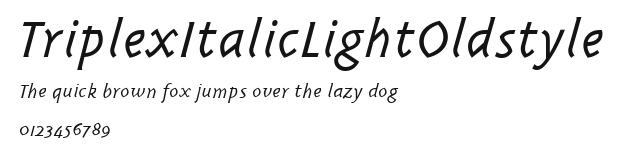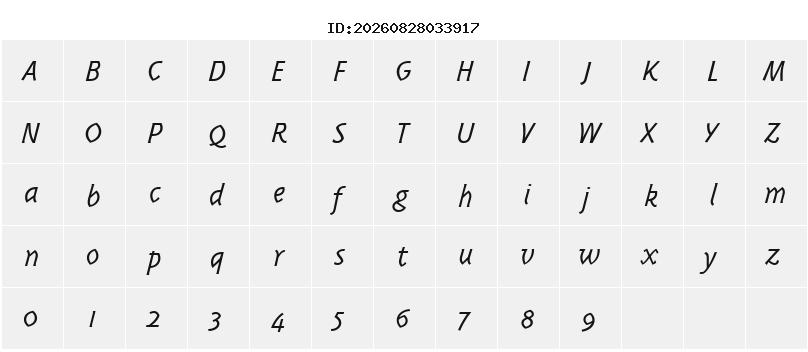
• Font Name: TriplexItalicLightOldstyle
• Font ID: Altsys Fontographer 3.5 TriplexItalicLightOldstyle Italic
• Full Font Name: TriplexItalicLightOldstyle Italic
• Version: Altsys Fontographer 3.5 2/23/93
• PostScript Name: TriplexItalicLightOldstyle
• Character Count: 245
About TriplexItalicLightOldstyle.ttf
TriplexItalicLightOldstyle.ttf is a modern, elegant sans-serif font designed for ultimate readability and visual harmony. Perfect for branding, headlines, web design, and print materials.